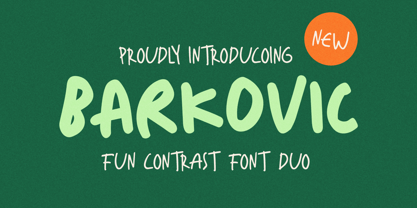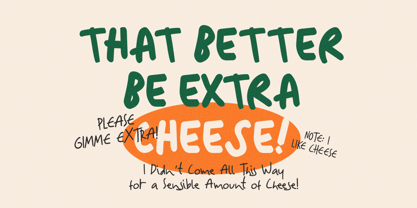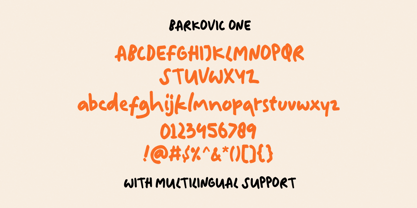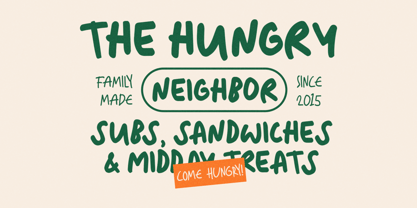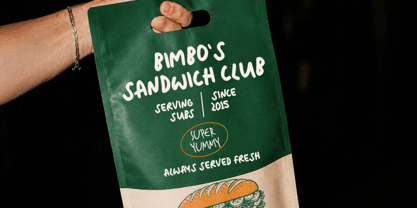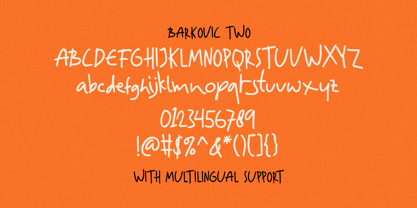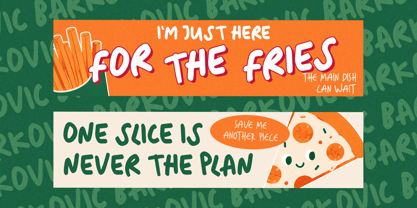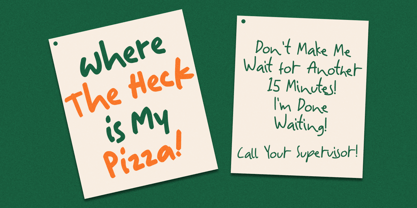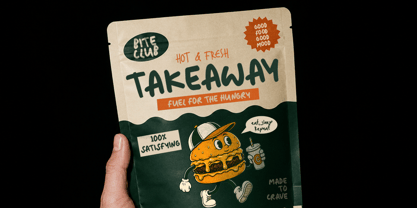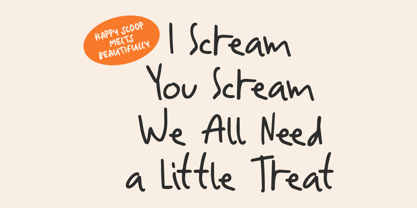
Barkovic
Friendly, relaxed, and wonderfully imperfect, Barkovic feels like handwriting that comes naturally. This playful font duo pairs a casual handwritten style with a bold marker-inspired companion, giving you an effortless way to create eye-catching titles alongside lighter handwritten accents.
• Uppercase & lowercase
• Numbers and punctuation
• Multilingual Support